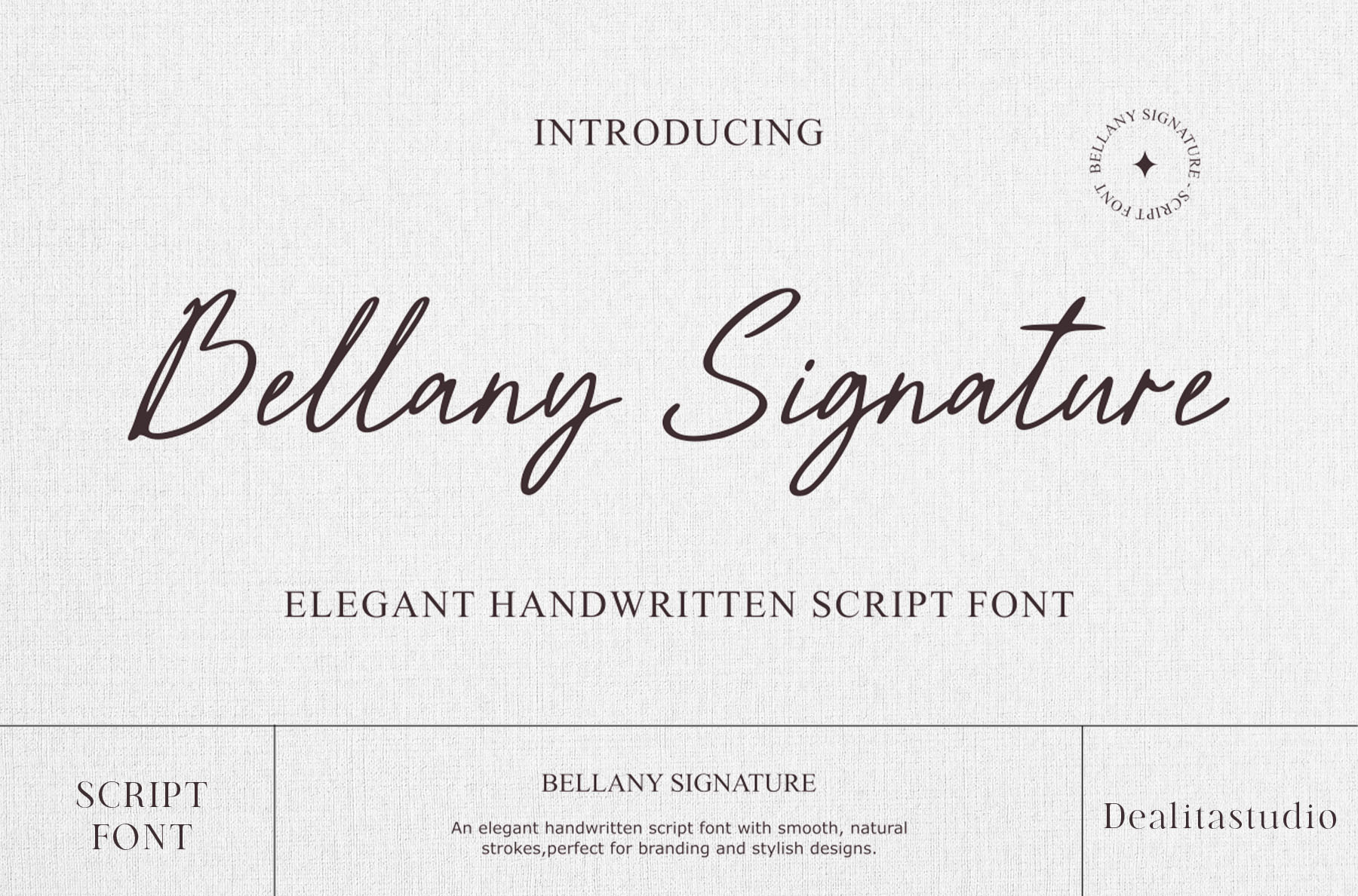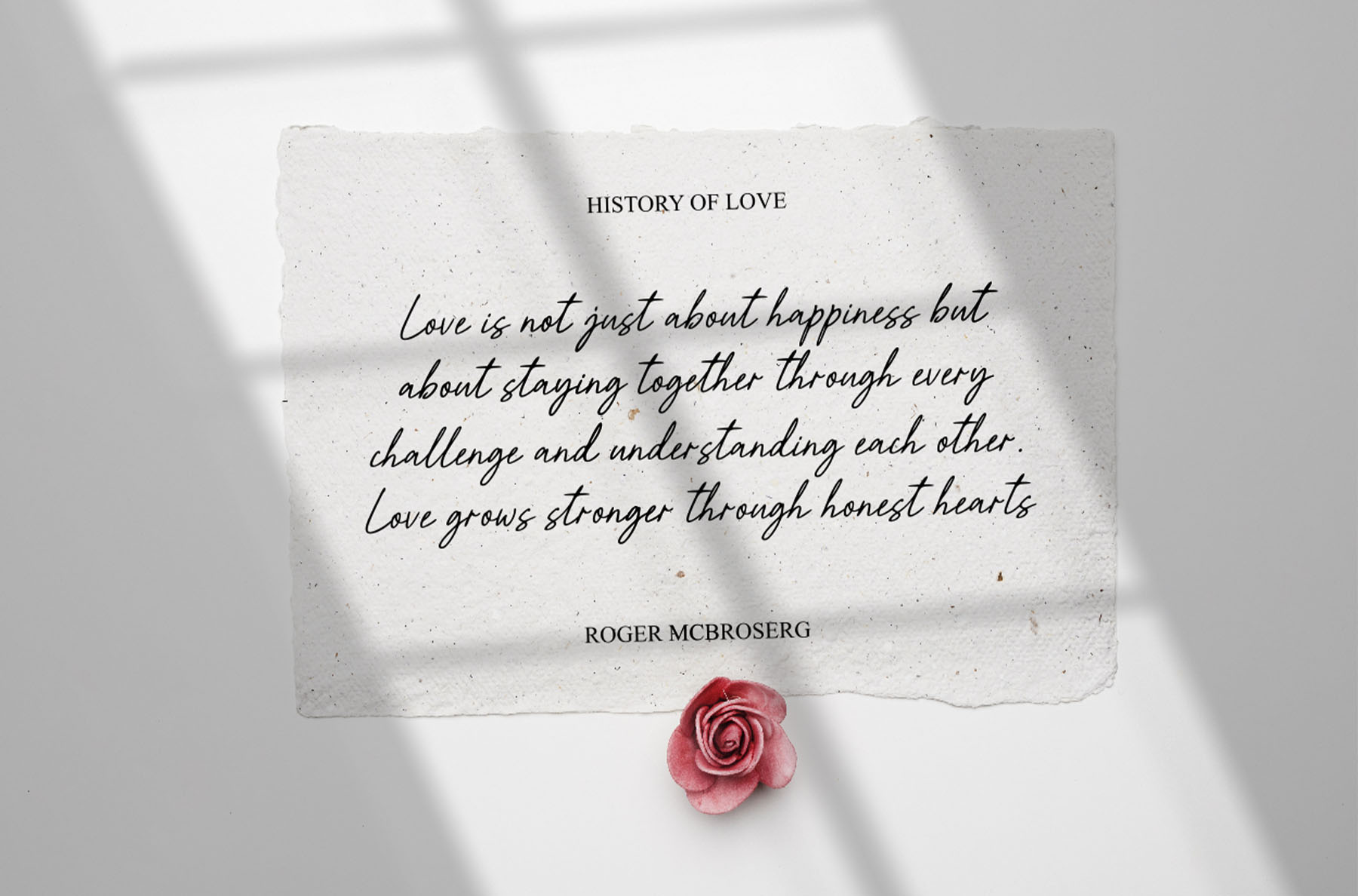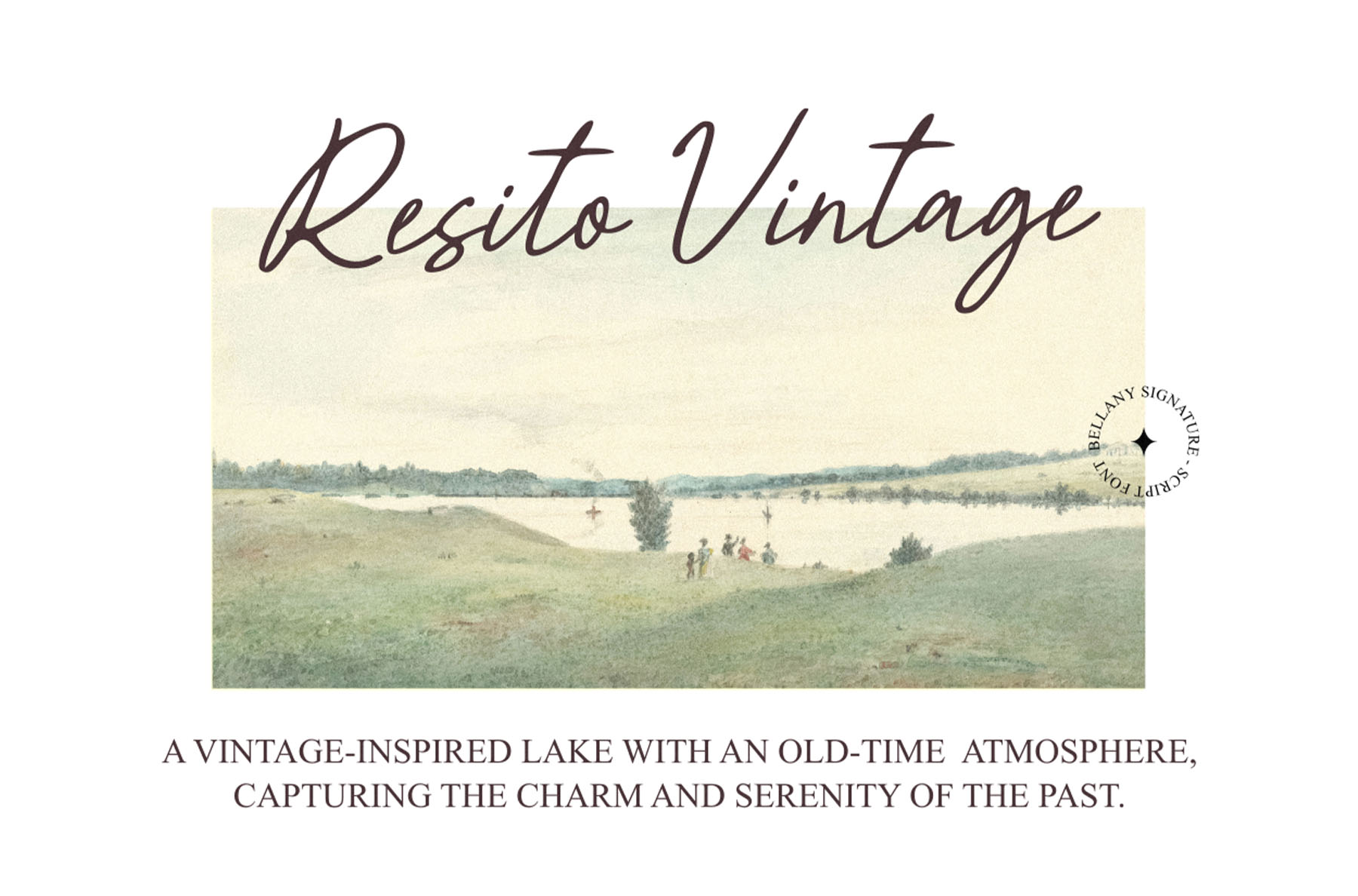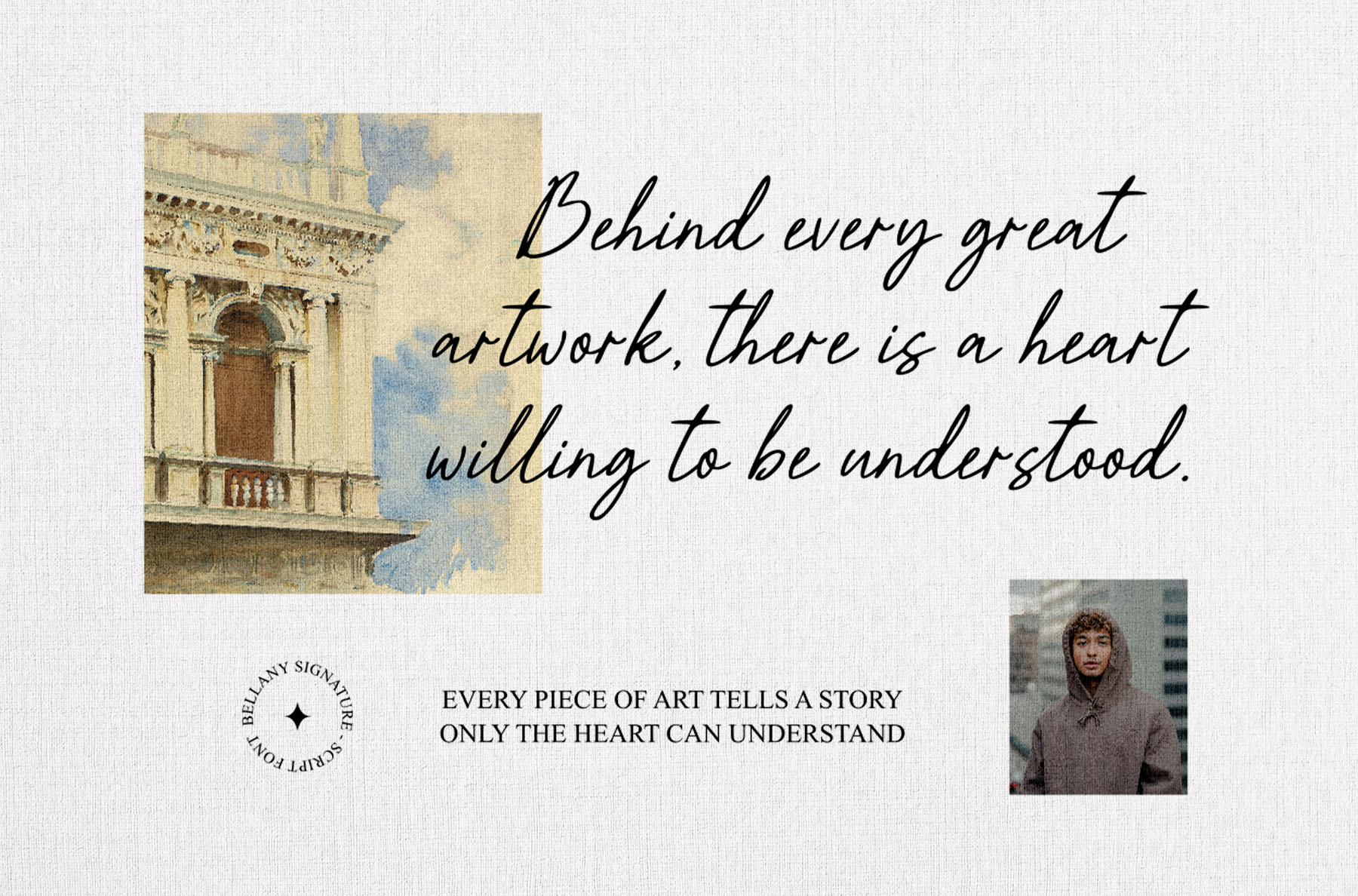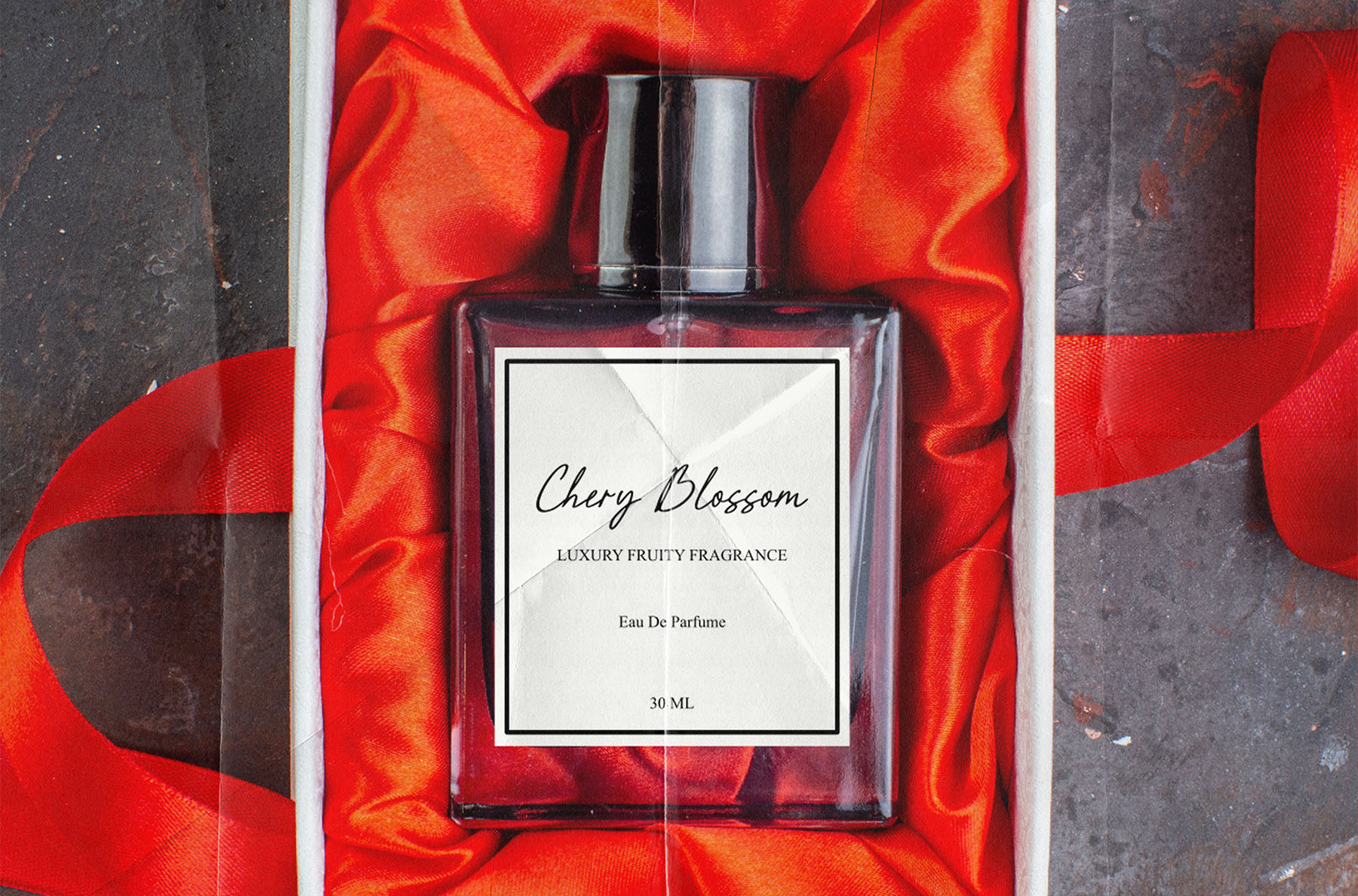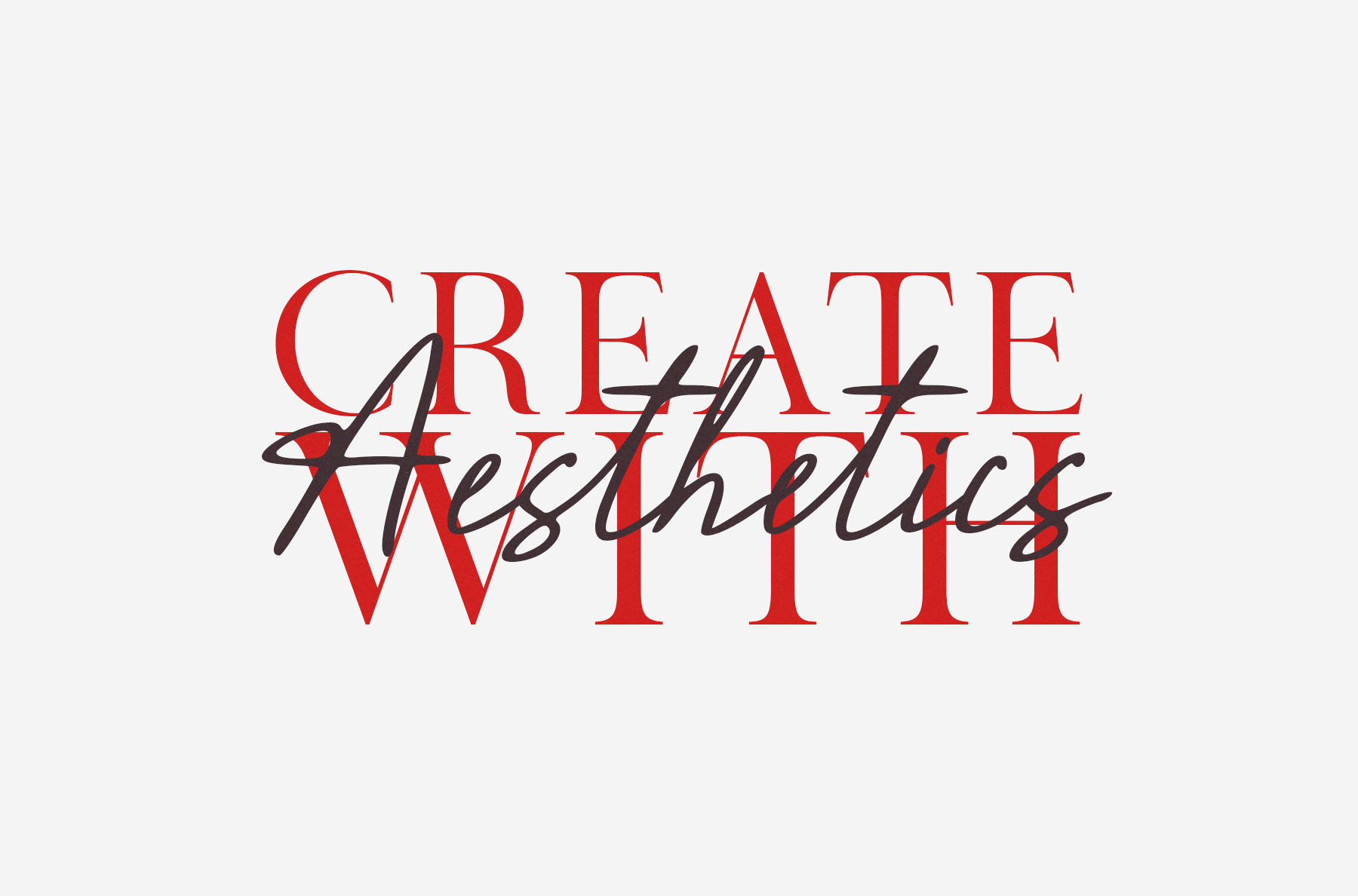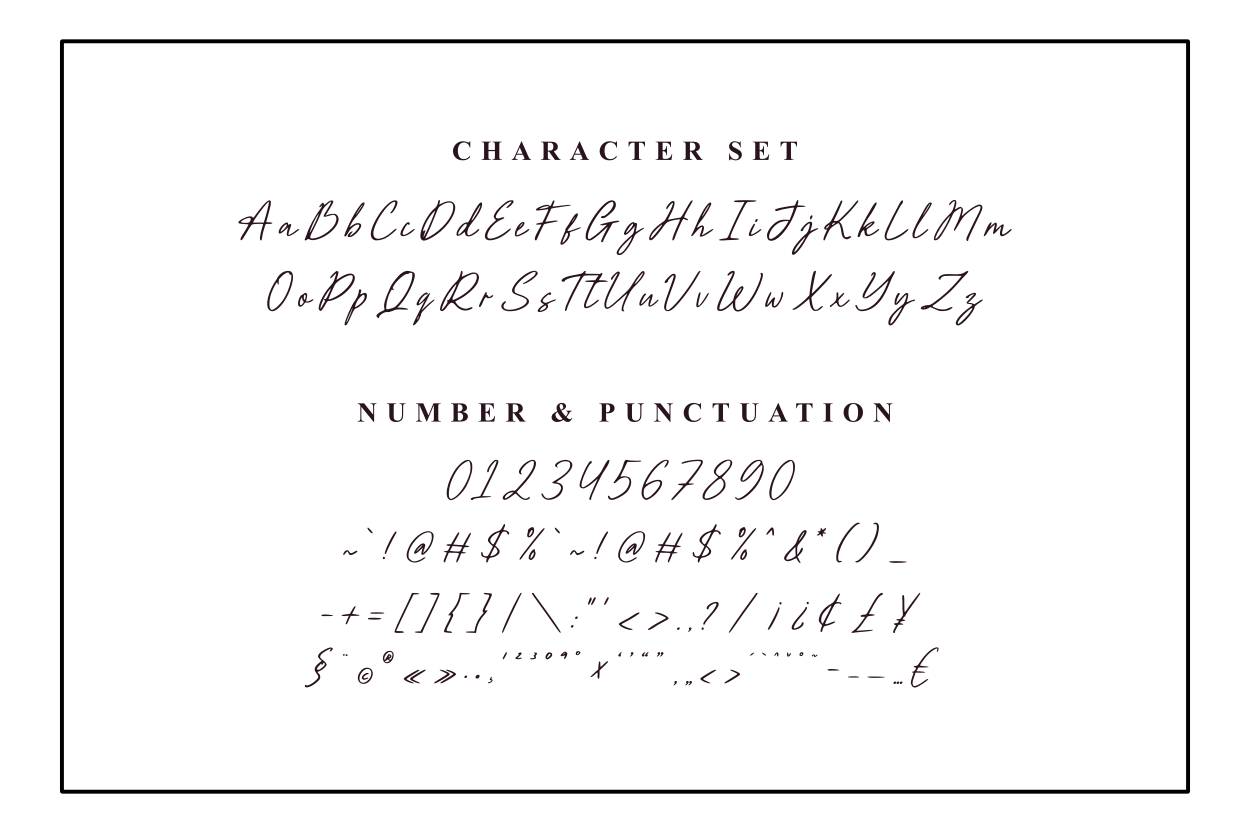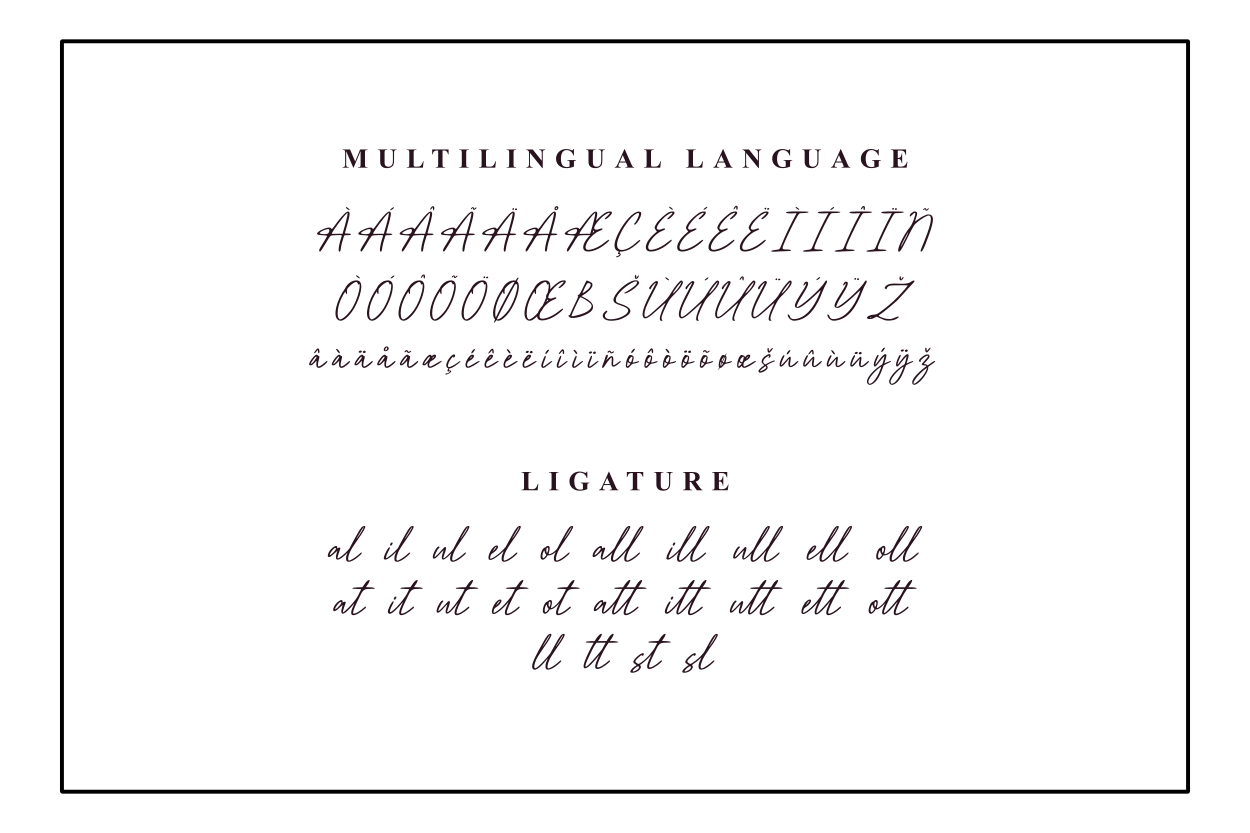
Bellany | Elegant Signature Font for Luxury & Watermarks
Welcome to Bellany Signature, where timeless sophistication meets effortless organic flow. This elegant signature font captures the highly sought-after aesthetic of a natural handwritten signature, making it the perfect typographic secret weapon for your most refined design projects.
Whether you are crafting luxury branding and standout logos, designing romantic wedding invitations, or curating high-end packaging, Bellany Signature instantly elevates your work with a premium, bespoke feel. It is also beloved by professional photographers as a stunning, unobtrusive watermark that protects images while adding an undeniable touch of class.
Ideal Applications
- Luxury branding and bespoke logo design
- Romantic wedding invitations and stationery
- High-end product packaging and editorial layouts
- Elegant, professional photography watermarks
Why You’ll Love Designing With Bellany:
- Seamless Handwritten Flow: Built-in custom ligatures automatically adapt and connect characters as you type, ensuring your typography looks authentically organic.
- Global Design Reach: Comprehensive multilingual support means your creative projects can communicate beautifully across different languages.
- Total Glyphs: 231 carefully crafted glyphs.
- Key Features: Custom Ligatures and Extensive Multilingual Support.
Designer Pro-Tip: Bellany’s organic signature aesthetic pairs flawlessly with a clean, modern sans-serif (like our Clofie font) to create a high-end luxury brand identity system where the signature acts as the exquisite accent.